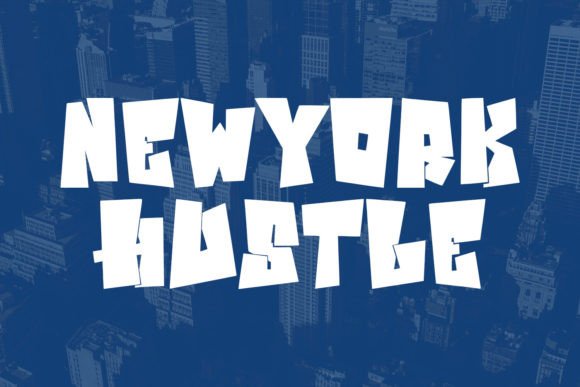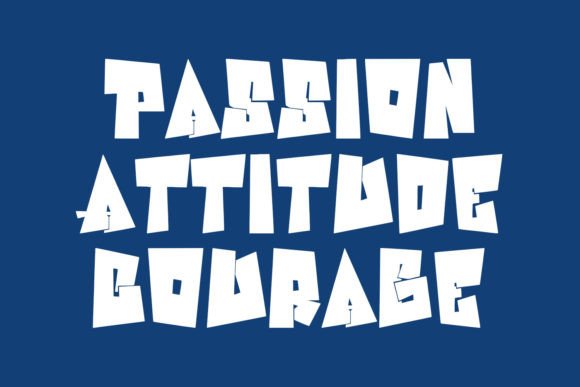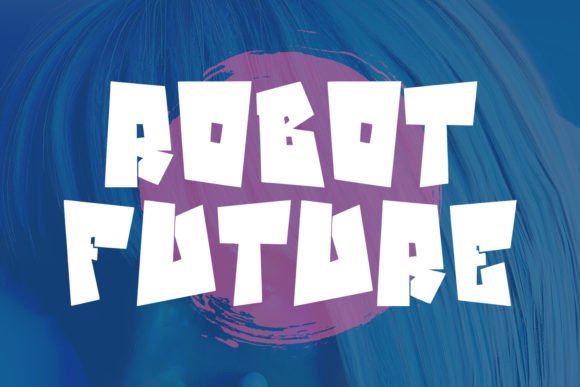
Introduction to Prochx Font
As a designer, have you ever been stuck on a creative project, searching for the perfect font to make your title pop? The moment of inspiration is fleeting, and the right font can make all the difference between a good design and a great one. That’s where Prochx Font comes in – a stunning display font that’s sure to elevate your creative project.
With its bold, tall letters and sharp edges, Prochx Font is the perfect choice for eye-catching titles and headlines. Its striking design is not only visually appealing but also high quality, making it a valuable resource for designers. Whether you’re working on a graphic design project, a logo, or a marketing campaign, Prochx Font is a must-have design resource that’s sure to make your design stand out.
Key Features of Prochx Font
- Transparent background design allowing for easy customization and layering in various creative projects.
- Single font file containing multiple styles and weights for added versatility in design projects.
- Vector-based design ensuring scalability and high-resolution output up to 300 DPI.
- Designed to be a unique and creative design resource for various applications, including digital and print media.
Honest Review: Prochx Font
As a designer, I’m always on the lookout for high-quality design resources that can elevate my creative projects. Recently, I had the chance to try out the Prochx Font, and I must say it’s been a great addition to my design arsenal.
Here are some things that work well:
- ✨ The font has a unique and modern design aesthetic that’s perfect for creative projects.
- ✨ The font has a transparent background, which makes it easy to customize and combine with other design elements.
- ⚠️ The font is not as versatile as some other fonts on the market, and it may not be suitable for all types of projects.
- ⚠️ The font’s size range is limited, which can make it difficult to use in certain design scenarios.
Overall, I’m impressed with the Prochx Font and would definitely recommend it to designers who are looking for a high-quality, free design resource. While it has its limitations, it’s a great addition to any design library and can help take creative projects to the next level.
Tips for Getting the Most Out of Prochx Font
Some tips for getting the most out of Prochx Font include using it in combination with other design resources, such as graphics and images, to create a visually appealing design. You can also experiment with different font styles and colors to find the perfect combination for your creative project.
Prochx Font is commonly used in a variety of design projects, including logos, business cards, and social media graphics. It is also a popular choice for creative projects, such as infographics and posters. With its high-quality design and transparent background, Prochx Font is a valuable design resource for any project.